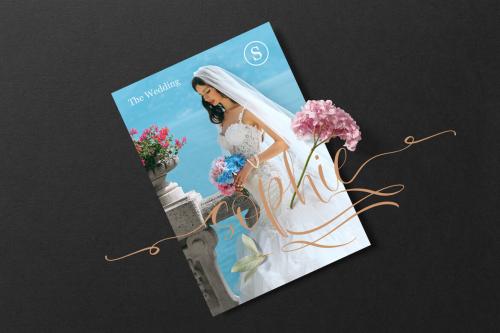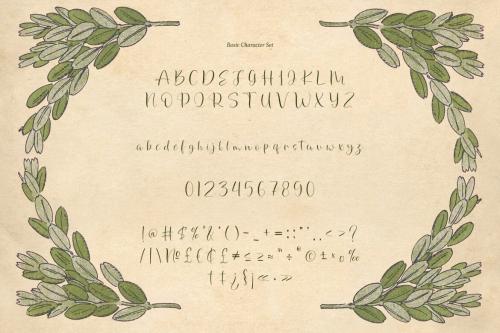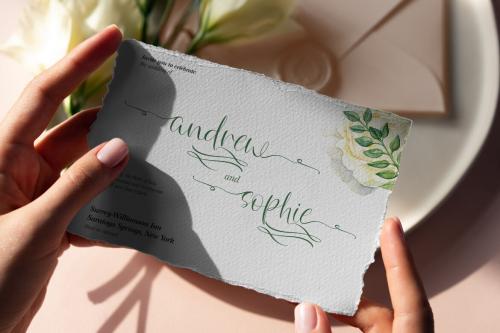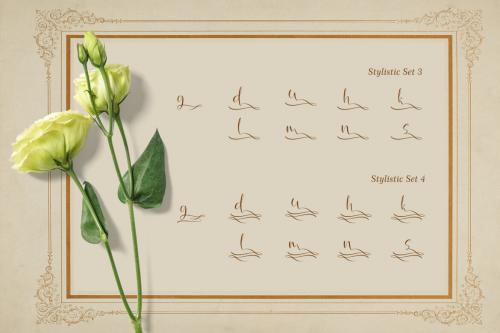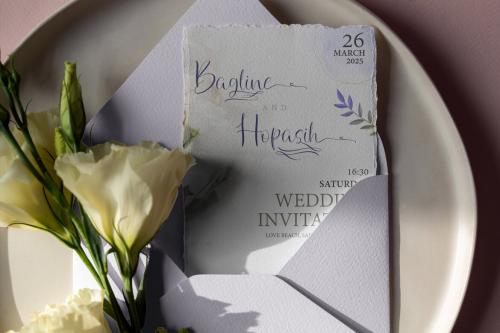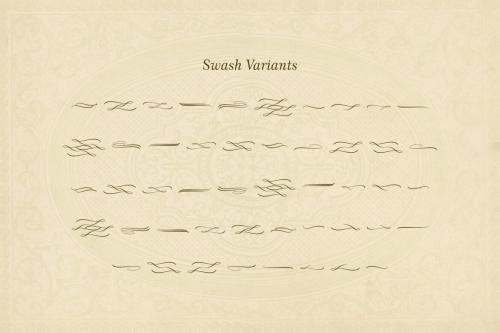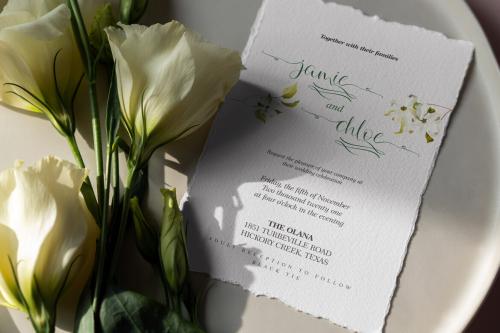
NCL NOSTALGIC WEDDING is romantic wedding script font. It is unique handwritten script font with lots of swash variants. Masterfully designed to become a true favorite, this font has the potential to bring each of your creative ideas to the highest level! It was purposely crafted to be used in large point sizes, although it doesn’t lose its magic in small point sizes. It is perfect for wedding or romantic event, headline, billboard, magazines, website, titles, poster, branding, t-shirt design, and logos. No matter the topic, this font will be an incredible asset to your fonts’ library, as it has the potential to elevate any creation. With this beautiful font, absolutely you can make your project stand out from the rest. See the previews above to get some inspiration on how to use them.